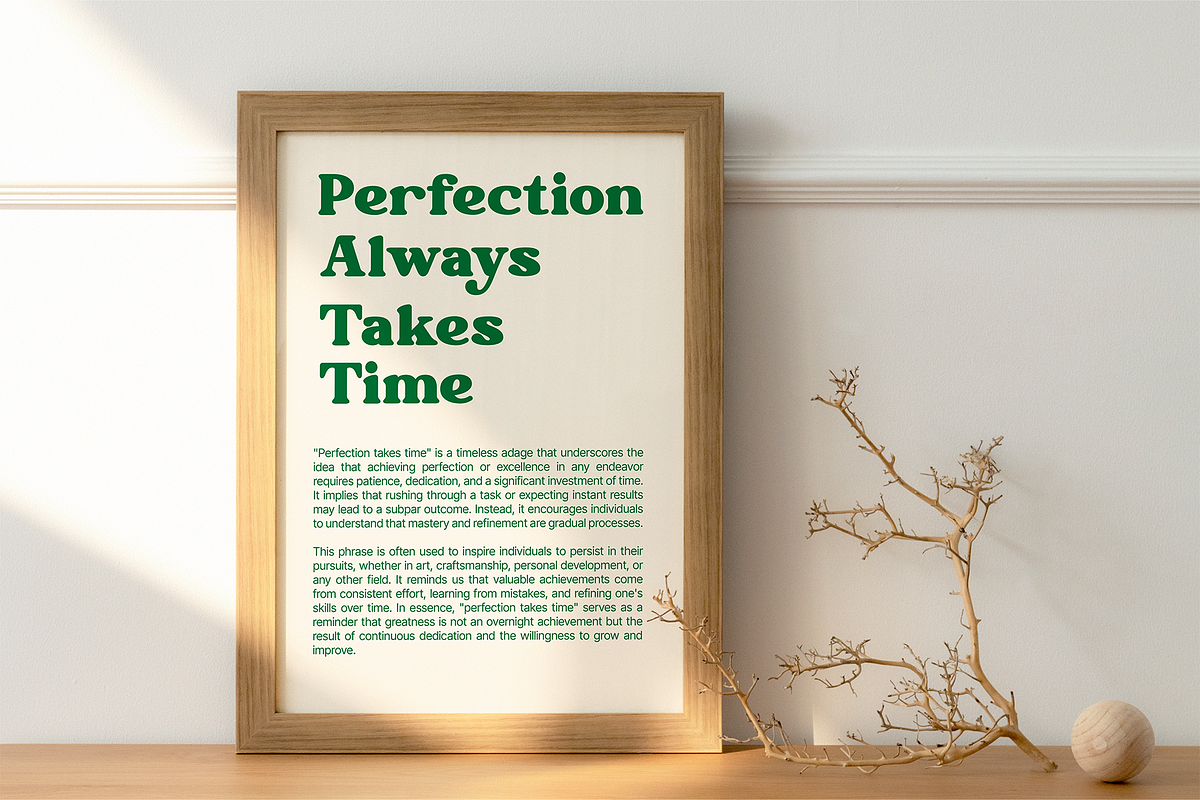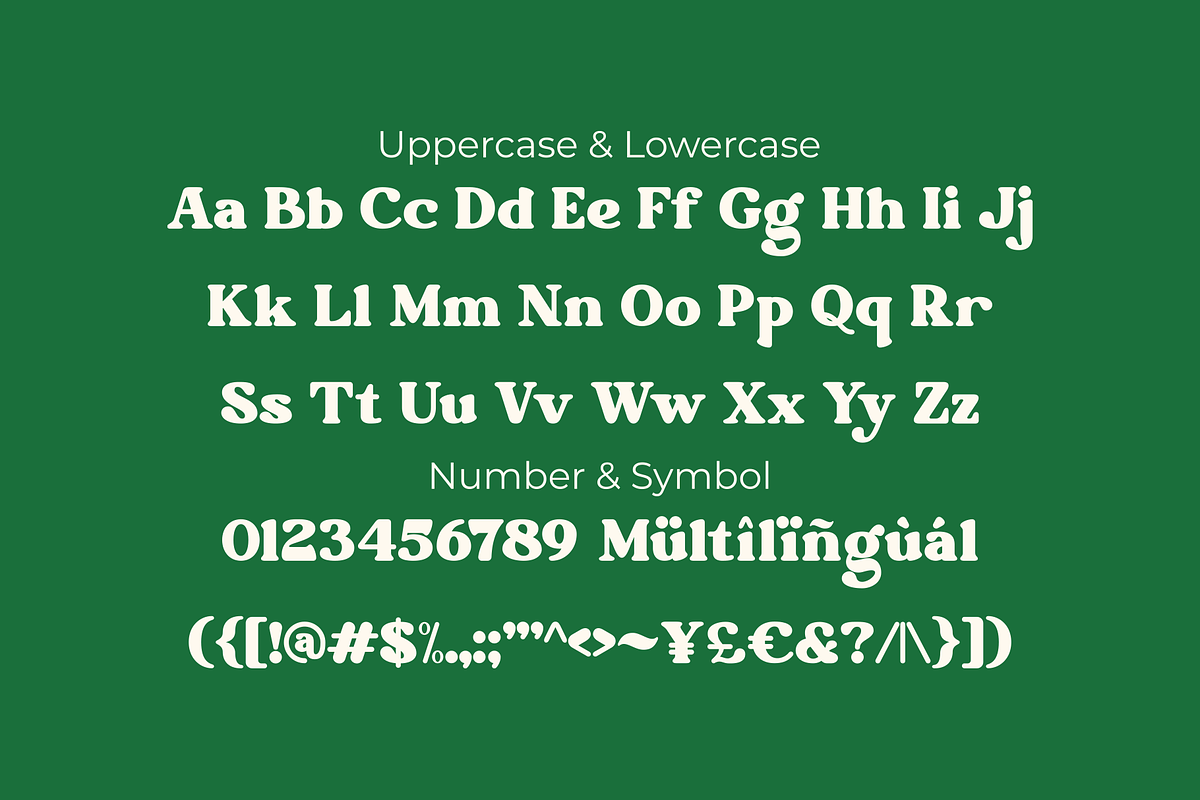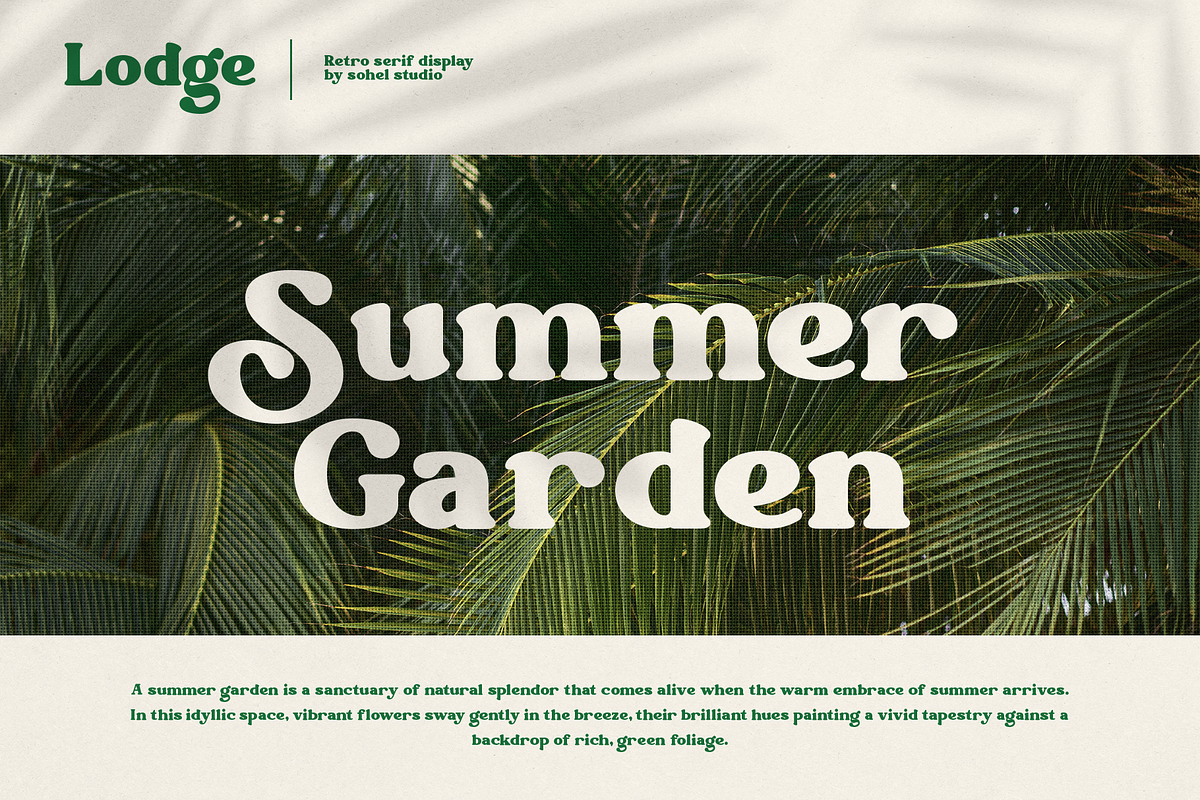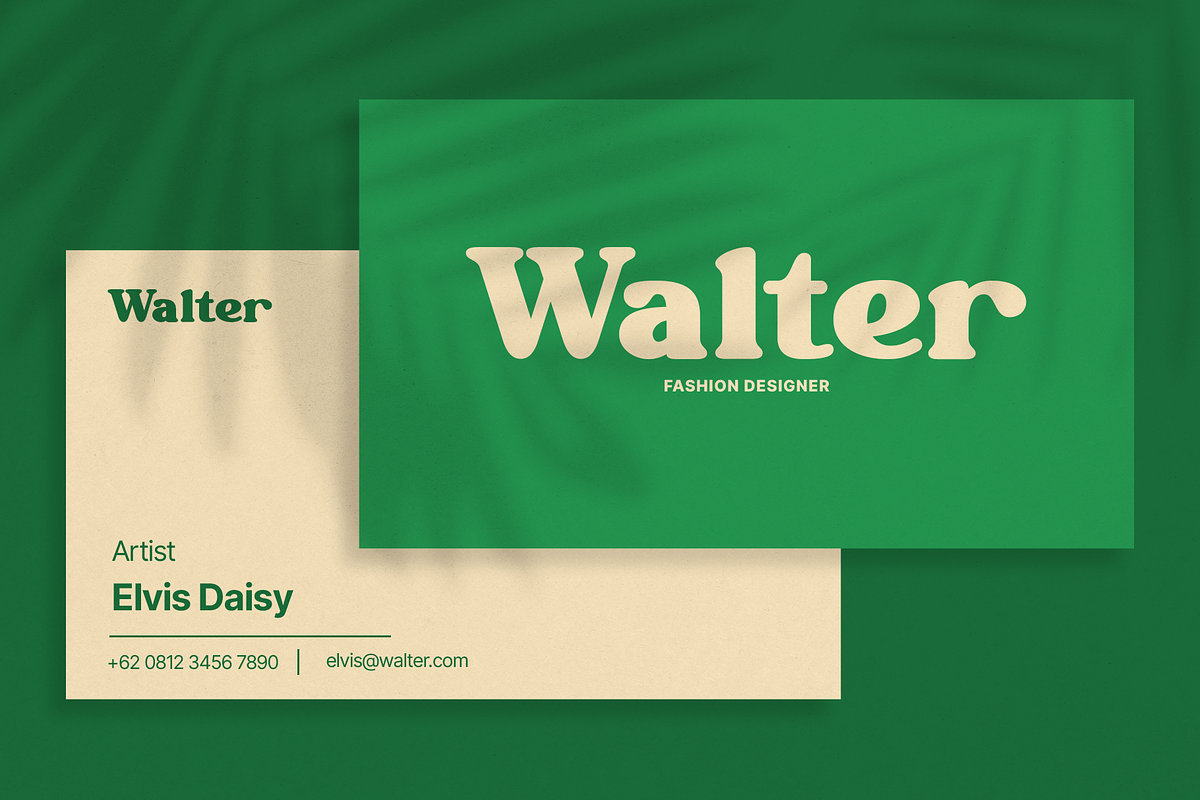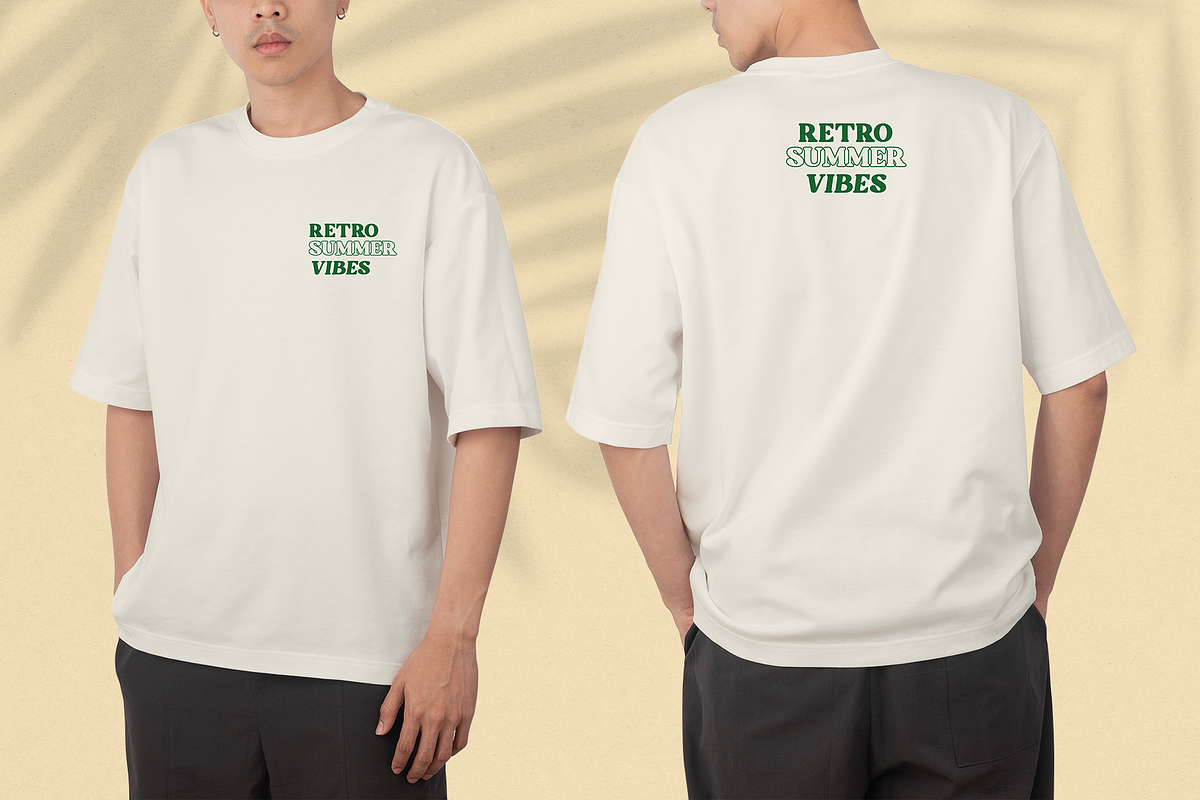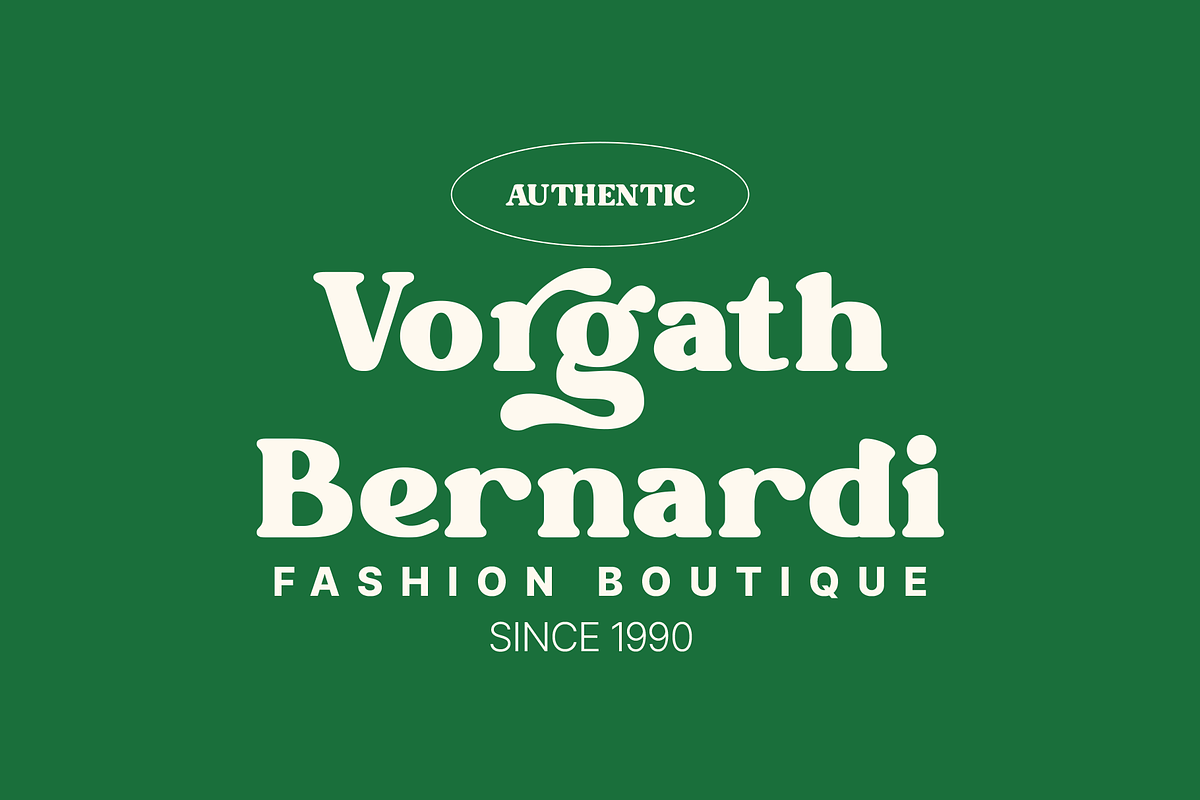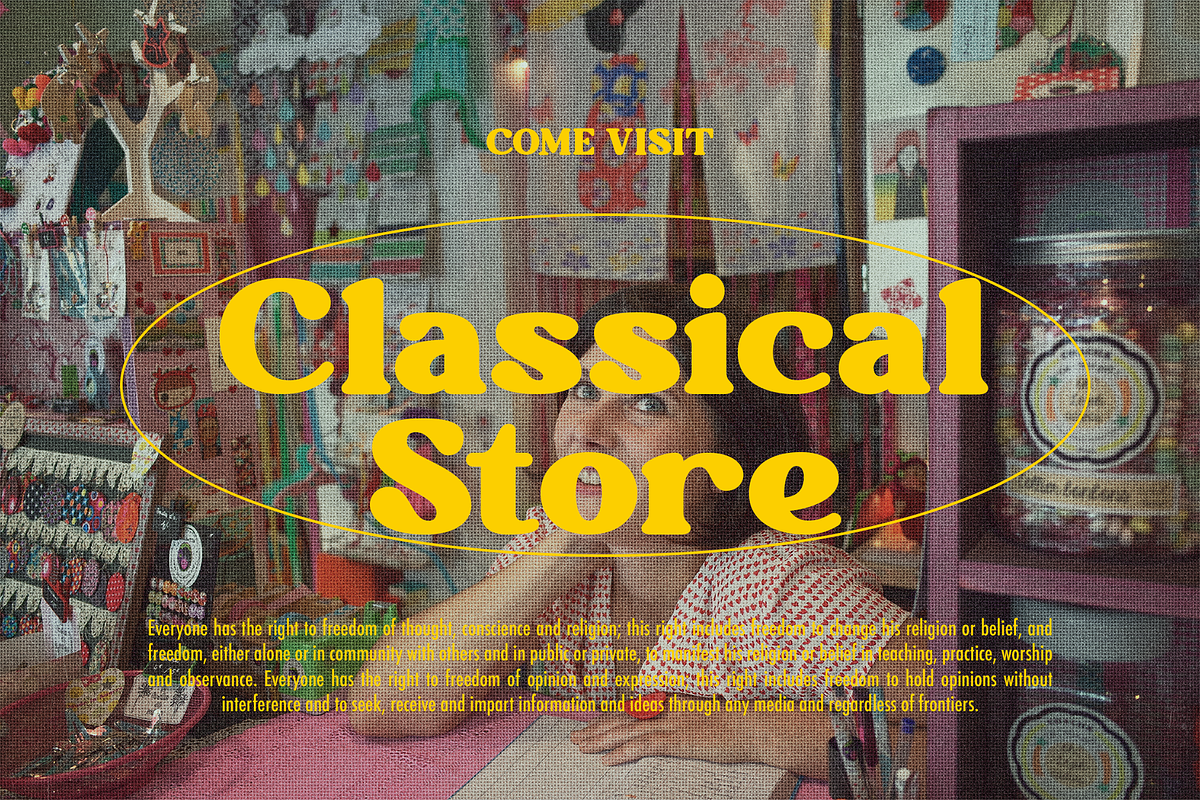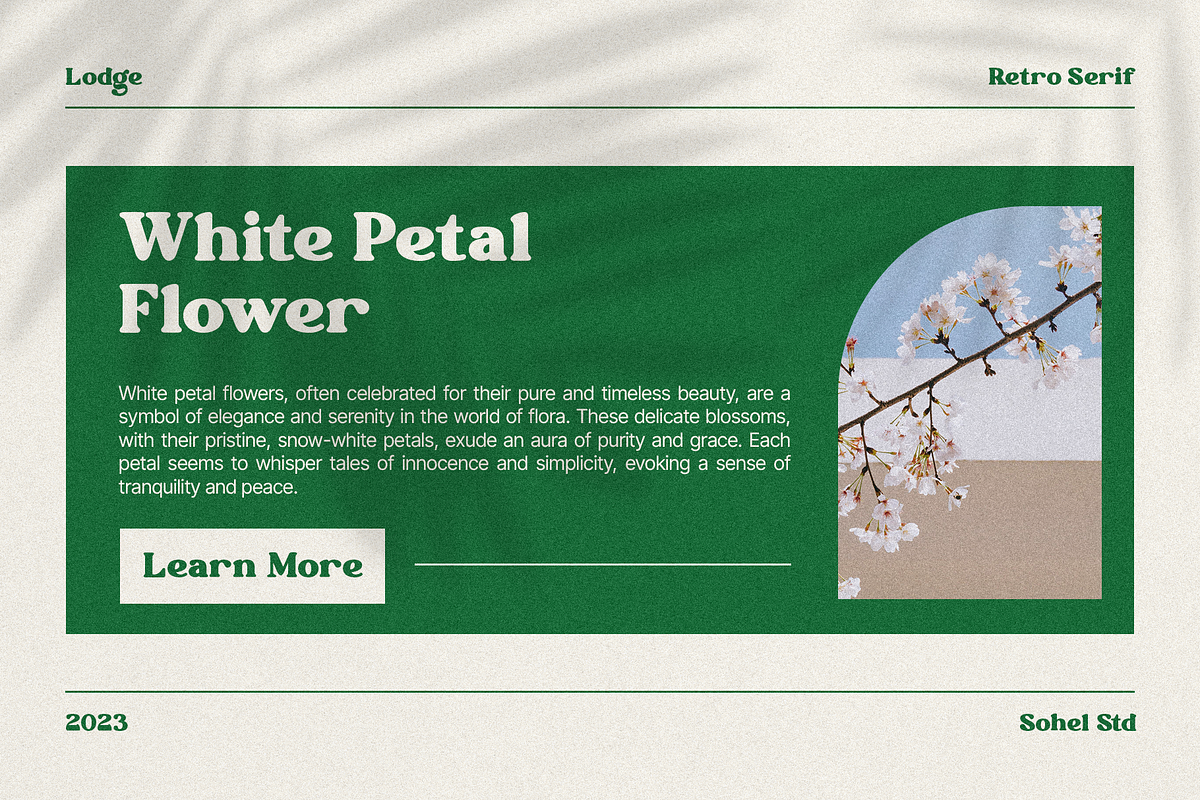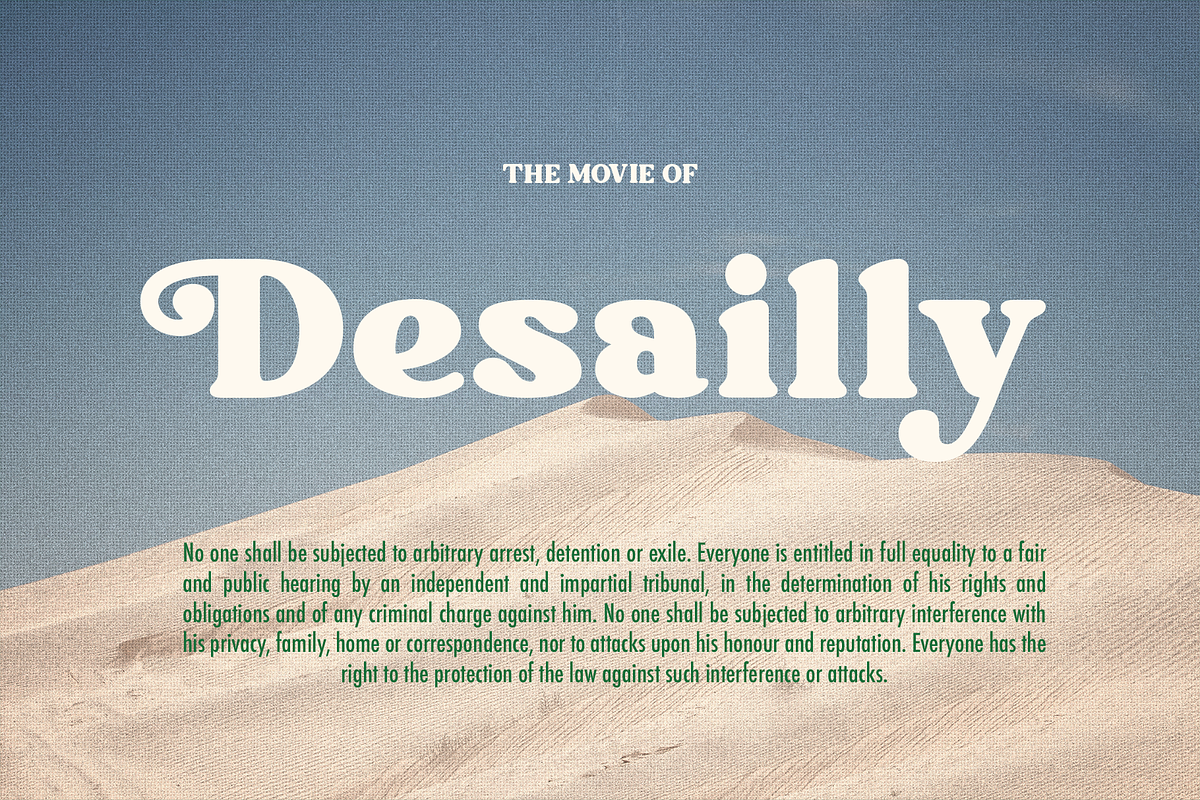
Lodge - Advertising Typeface
Lodge Introducing our retro chunky serif font, a bold and nostalgic typeface that brings a classic and timeless design to your projects. With its thick, distinctive serifs and strong character set, this font is perfect for creating eye-catching headlines, vintage posters, and stylish branding. Embrace the 1970s-inspired aesthetics with this unique typography that adds a touch of nostalgia to your designs. Whether you're working on print materials, display graphics, or editorial layouts, our retro chunky serif font will give your projects a bold and timeless appeal.
Lodge Features:
- Uppercase And Lowercase
- Alternates And Ligatures